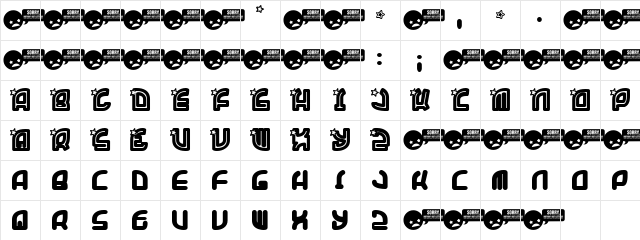
SuperTrooper Regular Free Font
SuperTrooper Regular
SuperTrooper Family
Design Context for SuperTrooper
SuperTrooper is a composed and adaptable typeface that performs quietly and consistently across a wide range of design contexts.